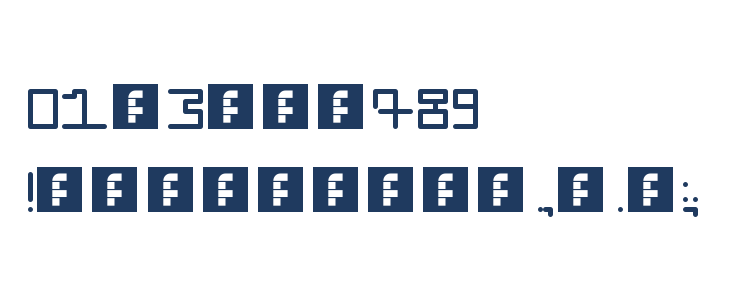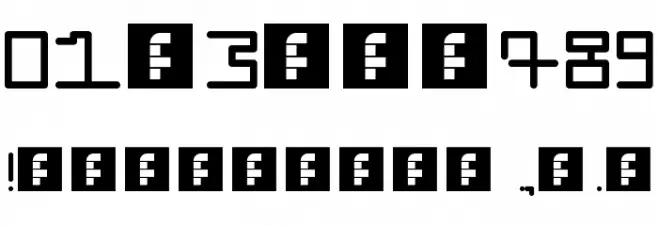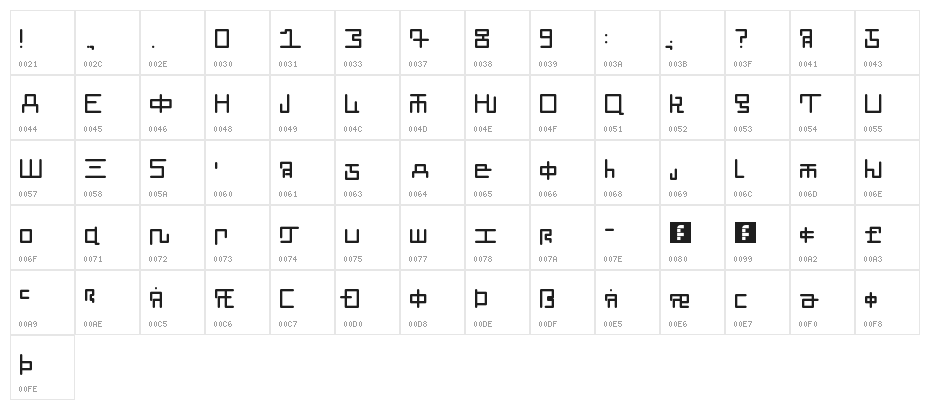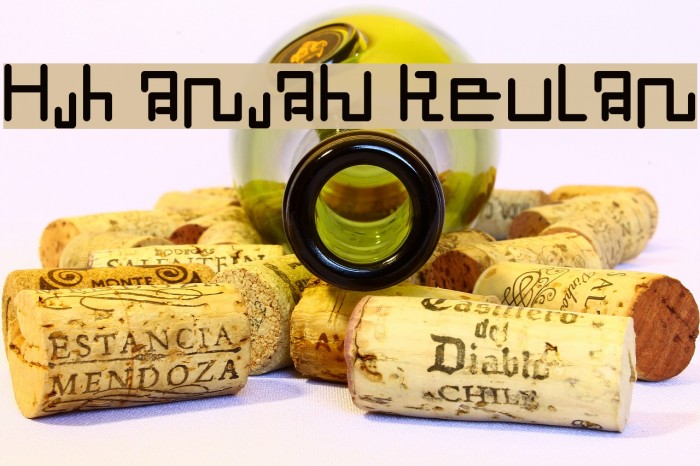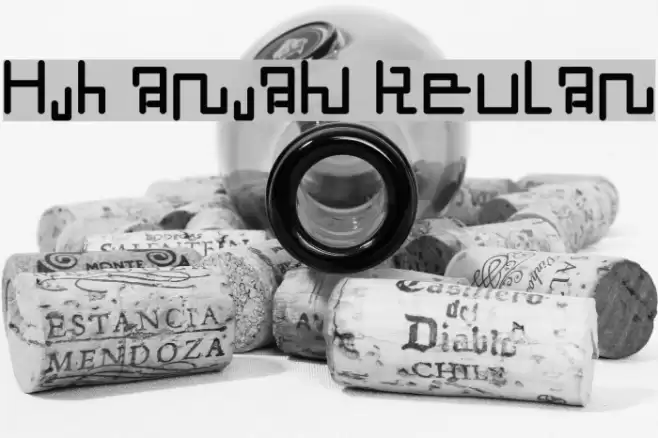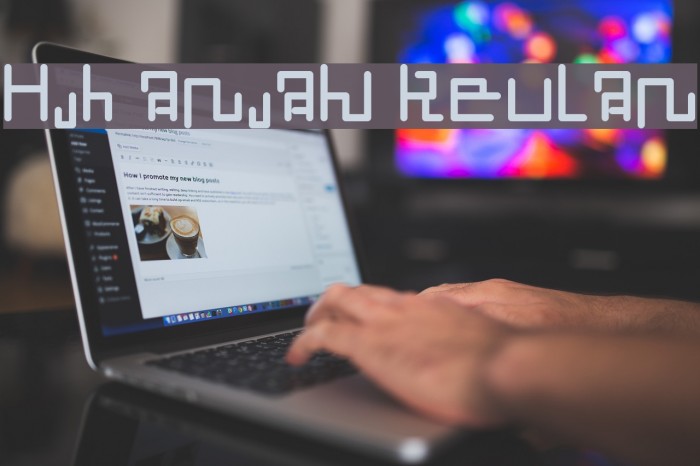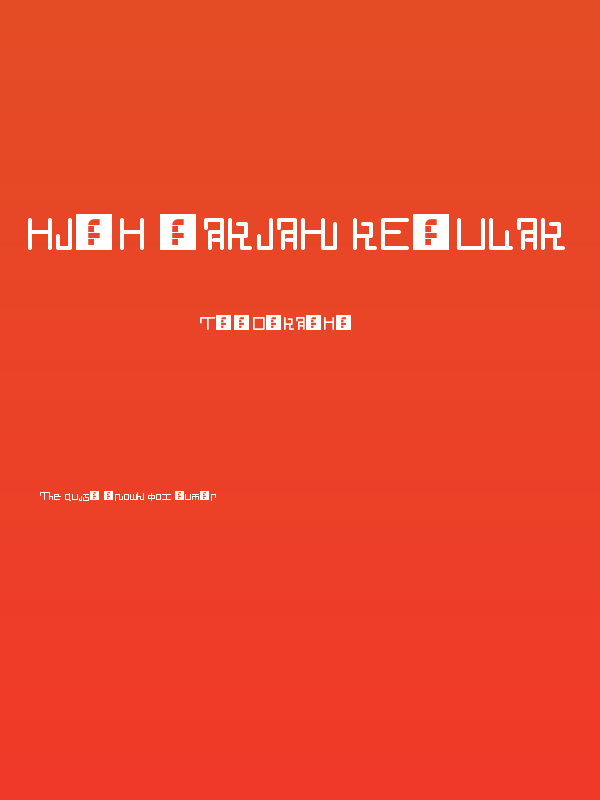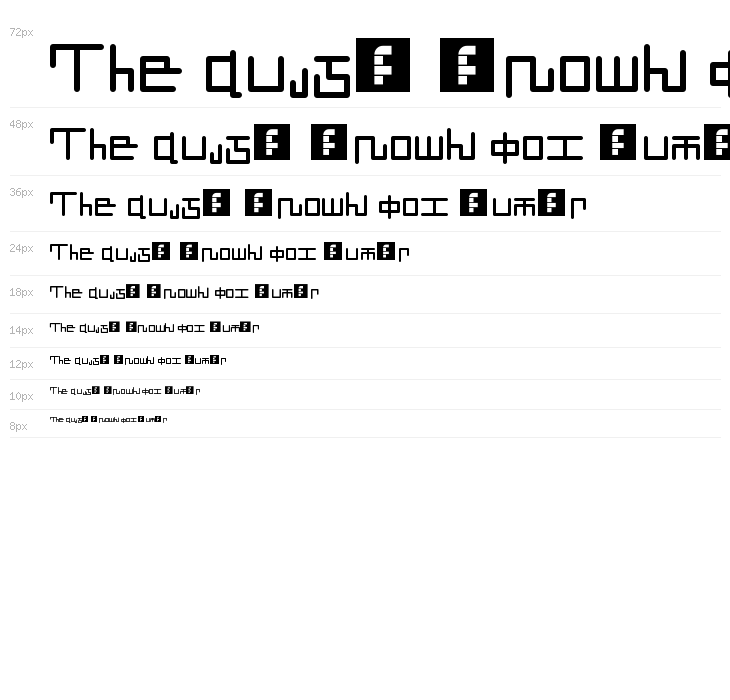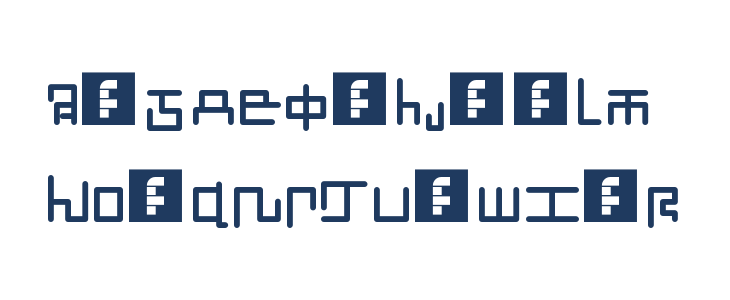
High öarian Regular Font
High öarian Regular Description
This font features a futuristic and geometric design, characterized by its unique blend of sharp angles and rounded edges. The letters are constructed with a consistent stroke width, giving it a monospaced appearance. The uppercase and lowercase letters maintain a uniform height, contributing to a clean and orderly look. The numbers and special characters follow the same design principles, ensuring a cohesive visual style across all elements. The font's distinct style makes it suitable for modern and tech-oriented projects, where a bold and innovative look is desired.
| Use Case | Logos, Headlines, Digital interfaces |
| Proposed Projects | Ideal for technology branding, sci-fi posters, video game interfaces, and modern digital art. |